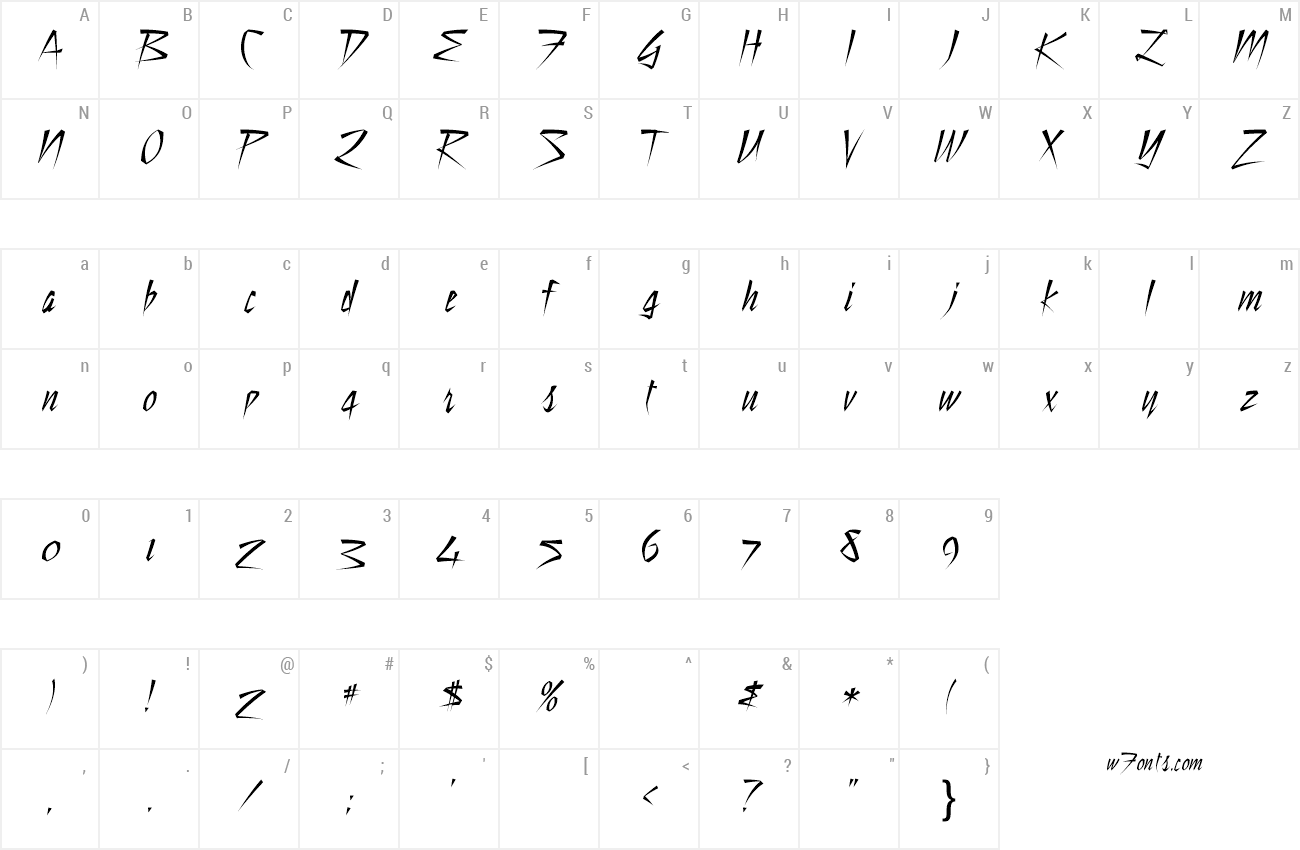
Review Of Sharp Edge Fonts References
Review Of Sharp Edge Fonts References. This typeface is ideal for use on logos,. The font can be used in headings, logotypes, posters and packaging.
Leo Is Another Elegant Rounded Font That’s Been Crafted To Perfection With Geometric Precision.
Looking For Sharp Edges Fonts?